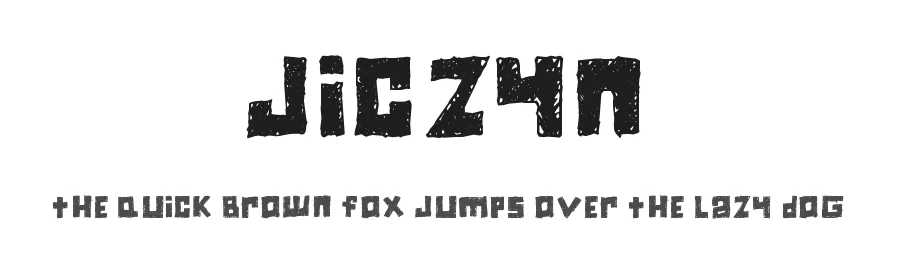
About MB Element Font
MB Element Font is a decorative font that shines as a display or heading face. Pair it with a clean sans-serif or serif font for body text β the contrast creates a clear hierarchy while the two styles stay balanced and easy to read.